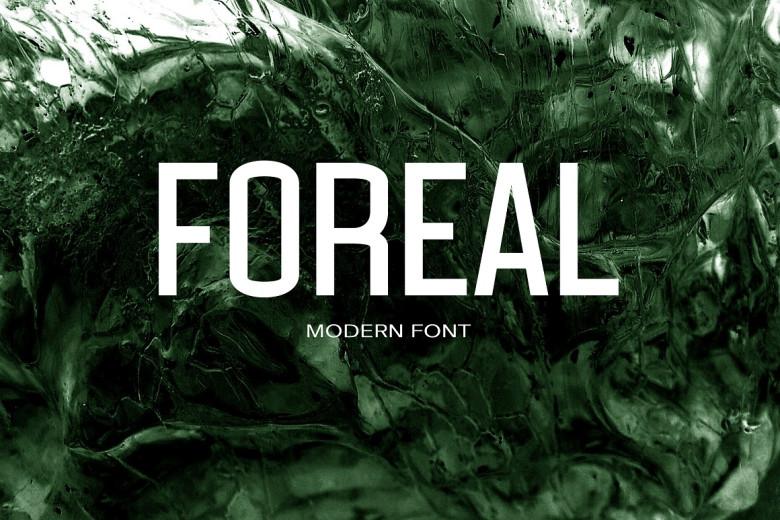
Foreal Font
Foreal is a sans serif font that has an astonishingly modern and minimalist style with unique curves. It is a great choice for branding projects, logo design, clothing branding, product packaging, magazine headers, etc. or simply as a stylish text overlay onto a photo background.
Foreal Sans Serif Font